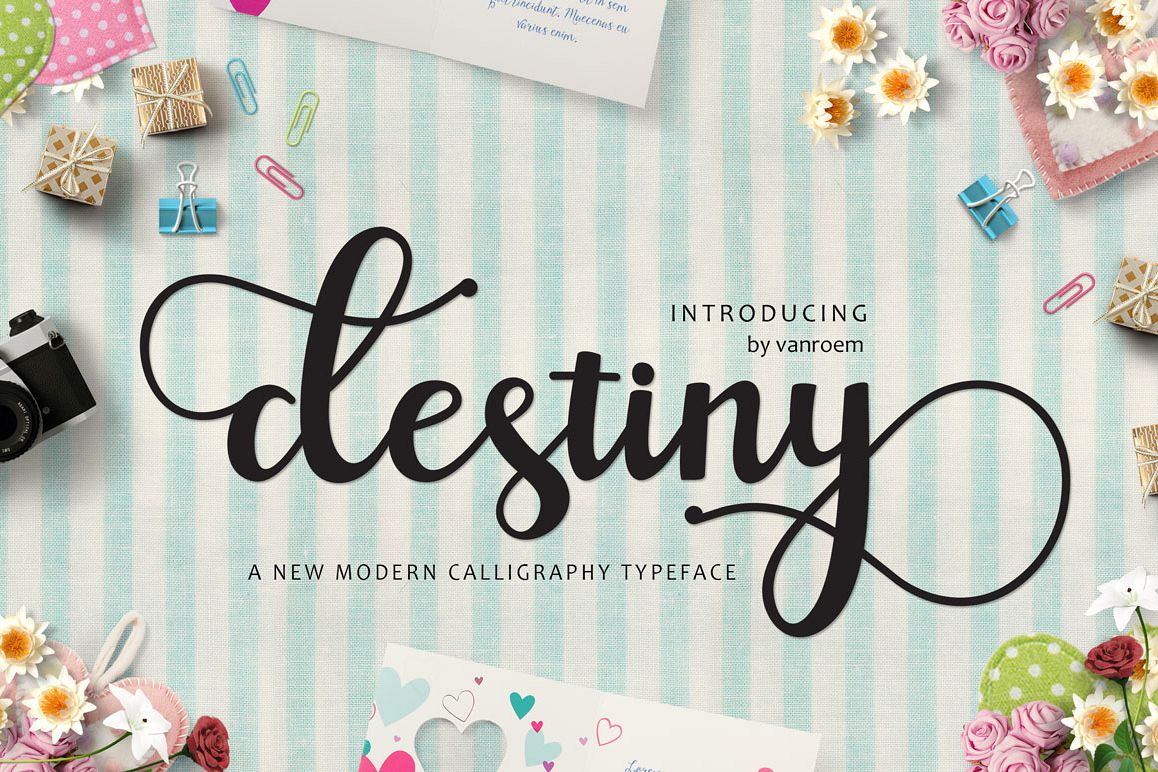
Destiny
Destiny Script
Destiny Script is a modern calligraphy typeface with traditional hand writing. Destiny Script multipurpose and flexible fonts, make it easy to match with another typefaces to create some beautiful project such as wedding invitation, vintage design, greeting card, poster, book cover, illustration, etc.
Destiny Script comes with 390 glyphs in total and has given PUA unicode (specially coded fonts), with tons of alternate characters. It was divided into a several OpenType feature such as Ligature, Contextual Alternates, Stylistic Alternates, and Stylistic Sets.